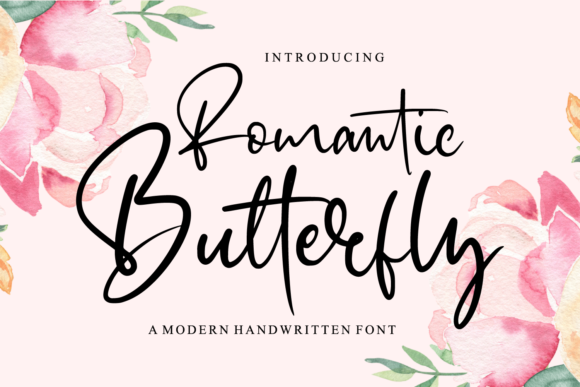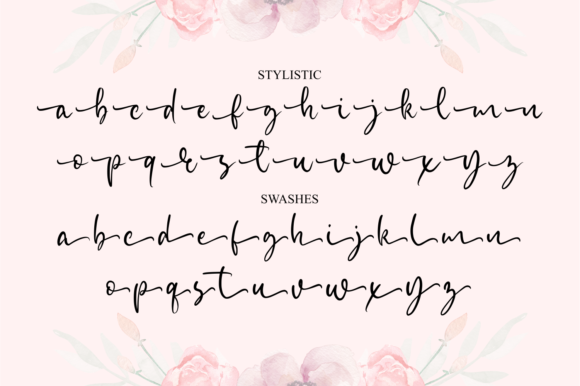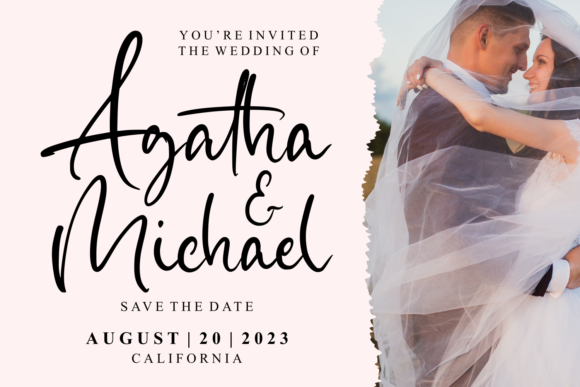
About Romantic Butterfly Font
Romantic Butterfly is a lovely script font featuring charming, playful characters that seem to dance along the baseline. This font is PUA encoded which means you can access all of the glyphs and swashes with ease!